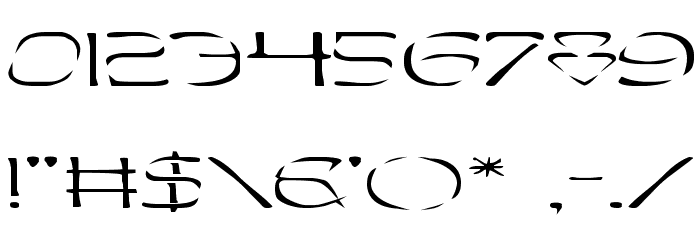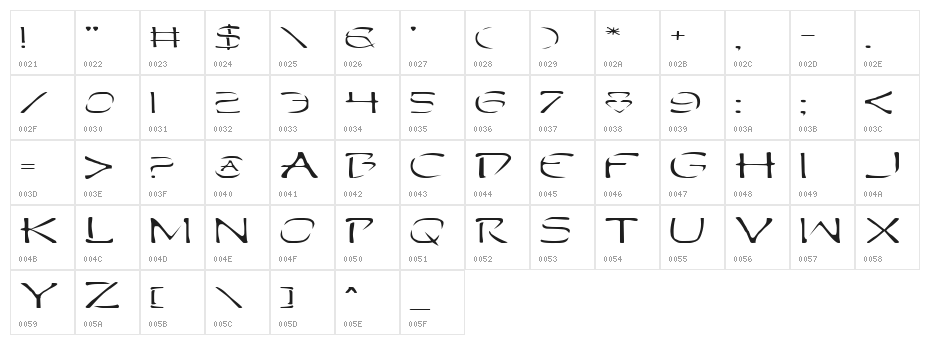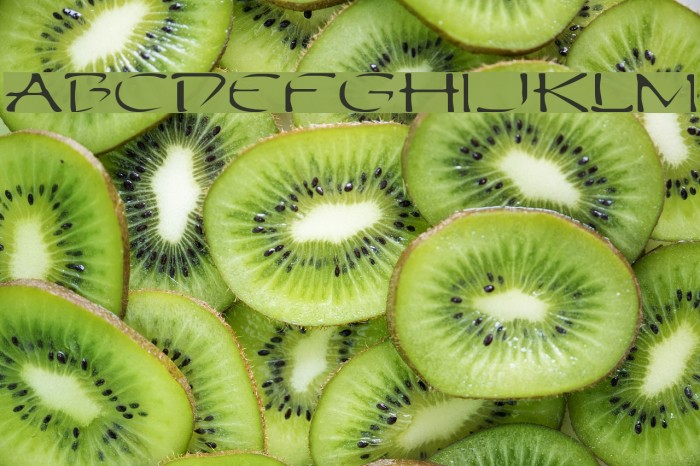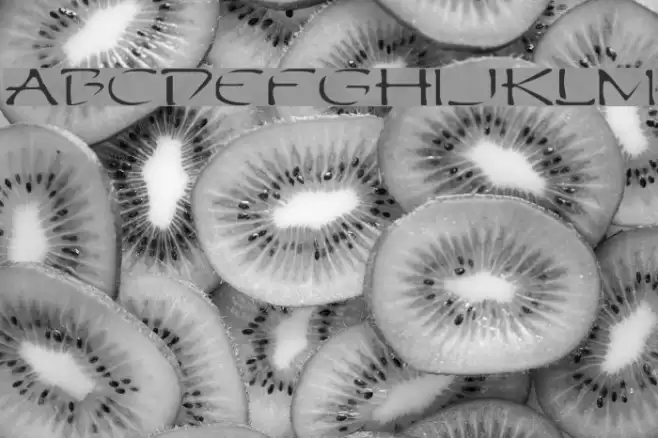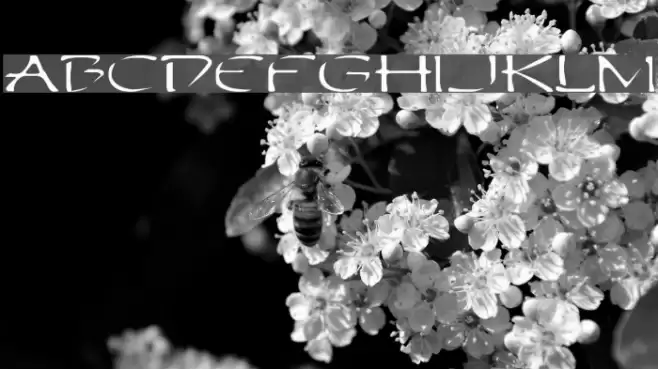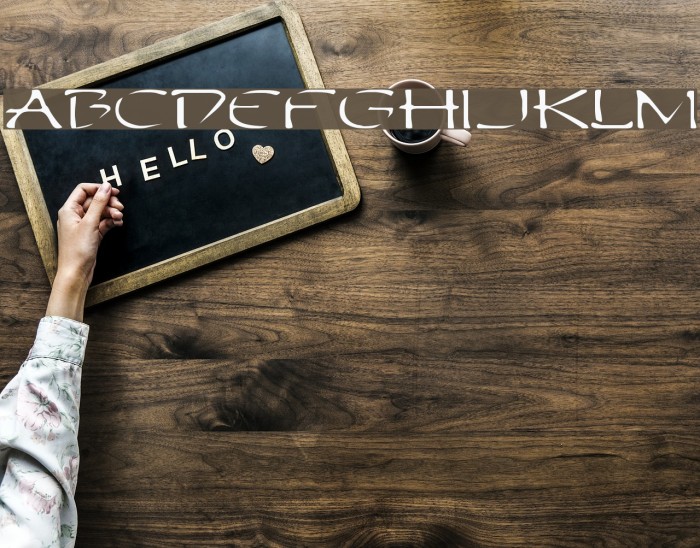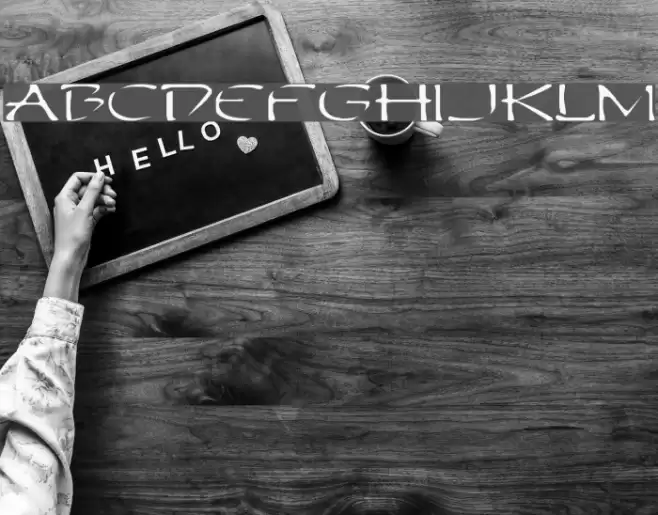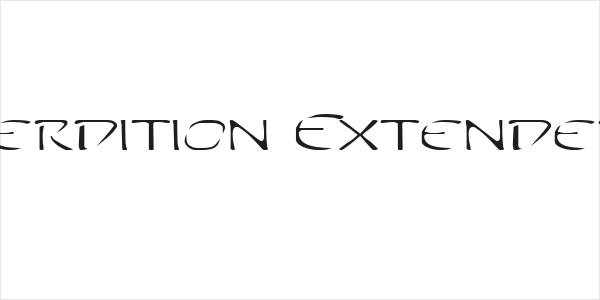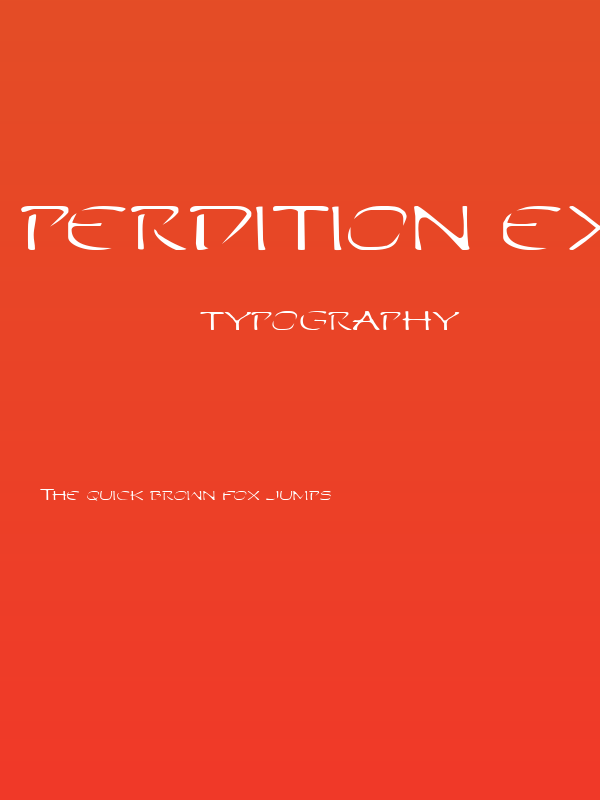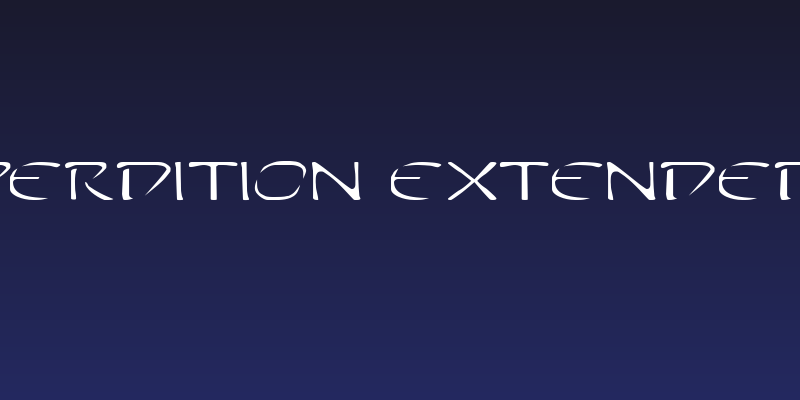
Perdition Extended Font
Perdition Extended Description
This font features a unique and futuristic design with sharp, angular edges and a distinct geometric style. The characters are elongated and have a sleek, modern appearance, making them stand out with their bold and striking presence. The uppercase and lowercase letters maintain a consistent style, with a focus on symmetry and balance. The numbers and special characters are designed to complement the letters, maintaining the same angular and futuristic aesthetic. This font is ideal for projects that require a modern and edgy look, such as technology-related branding, sci-fi themed designs, or any creative work that aims to capture attention with its distinctive style.
| Proposed Projects | Ideal for technology branding, sci-fi themes, and creative projects needing a modern edge. |